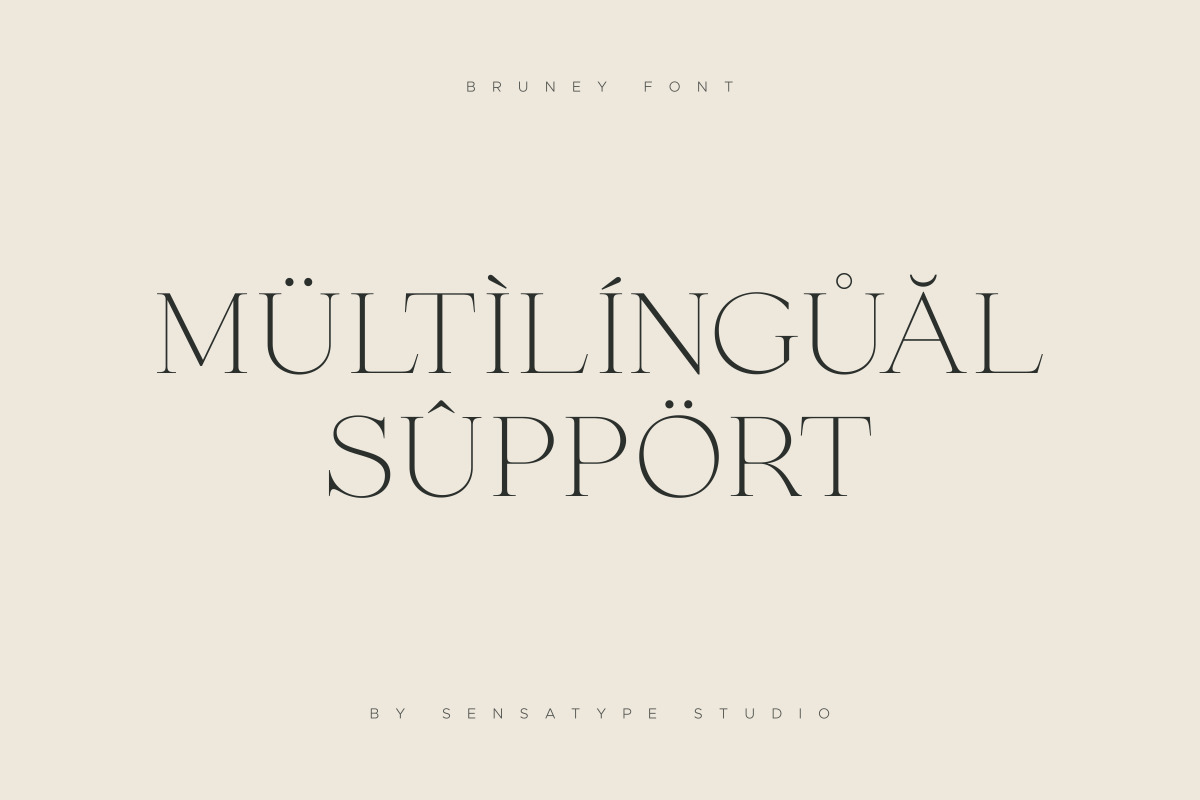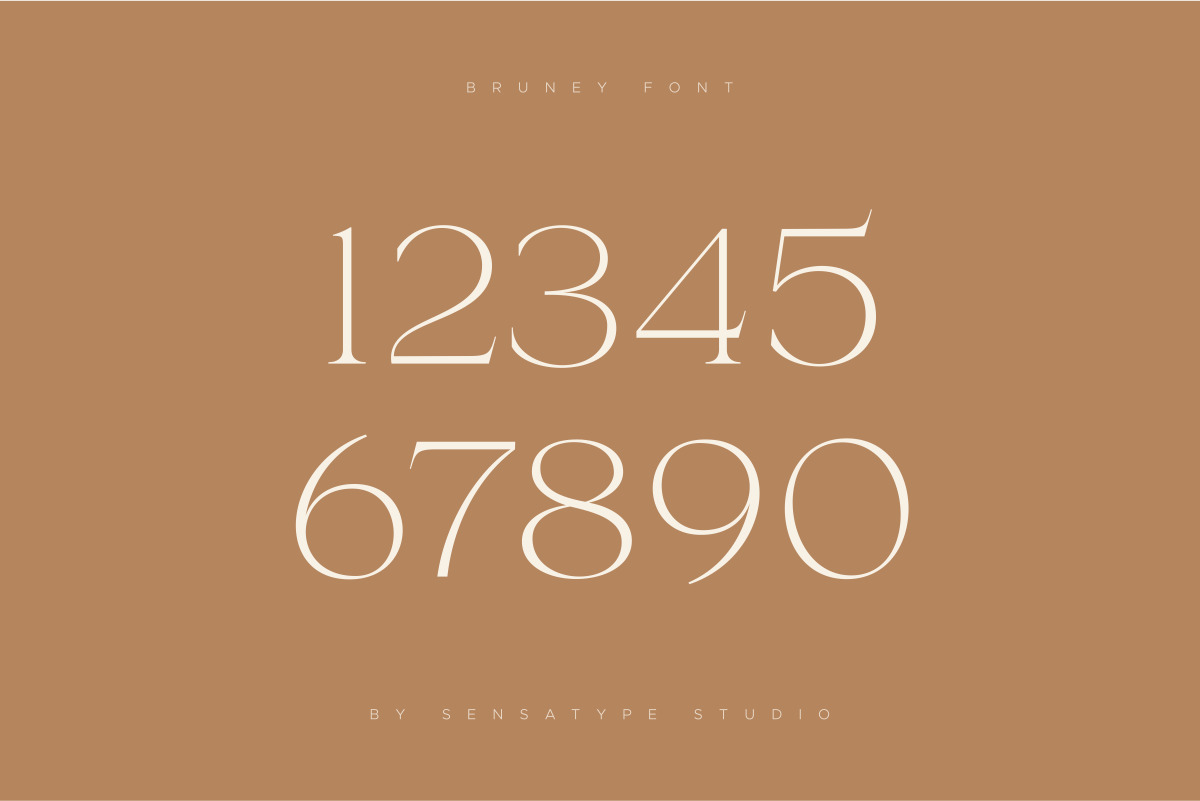
Bruney - Classy Ligature Font Free Download . Download ss bruney font · free for personal use · bruney classy ligature font bruney is a classy ligature font with casual chic flair. Based on our experience as a graphic designer who works for a lot of companies, we often are requested to design a logo in a. Bruney is a classy, unique serif font perfect for brand and logo design. Bruney is a classy and unique font for brand and logo design. So, we try to brainstorm and create this font to make the idea is going out. Bruney font is a classy ligature font with casual chic flair. It is perfect for branding, wedding invites and cards, and maybe. As graphic designers, our clients frequently ask us to design logos that are unique in style yet elegant in shape. Bruney is a classy and unique font for brand and logo design. Based on our experience as a graphic designer who works for a lot of companies, we. To fulfil this requirement, we brainstormed and created the bruney font. Bruney is a classy and unique font for brand and logo design. This is perfect for branding and logo design.
It is perfect for branding, wedding invites and cards, and maybe. Based on our experience as a graphic designer who works for a lot of companies, we often are requested to design a logo in a. Download ss bruney font · free for personal use · bruney classy ligature font bruney is a classy ligature font with casual chic flair. Bruney is a classy, unique serif font perfect for brand and logo design. So, we try to brainstorm and create this font to make the idea is going out. Bruney is a classy and unique font for brand and logo design. Based on our experience as a graphic designer who works for a lot of companies, we. Based on our experience as a graphic designer who works for. As graphic designers, our clients frequently ask us to design logos that are unique in style yet elegant in shape. Bruney font is a classy ligature font with casual chic flair.
Bruney - Classy Ligature Font Free Download Bruney is a classy and unique font for brand and logo design. Based on our experience as a graphic designer who works for a lot of companies, we. Based on our experience as a graphic designer who works for. Bruney font is a classy ligature font with casual chic flair. This is perfect for branding and logo design. To fulfil this requirement, we brainstormed and created the bruney font. Bruney is a classy and unique font for brand and logo design. So, we try to brainstorm and create this font to make the idea is going out. Bruney is a classy, unique serif font perfect for brand and logo design. It is perfect for branding, wedding invites and cards, and maybe. Bruney is a classy and unique font for brand and logo design. Based on our experience as a graphic designer who works for a lot of companies, we often are requested to design a logo in a. Bruney is a classy and unique font for brand and logo design. Download ss bruney font · free for personal use · bruney classy ligature font bruney is a classy ligature font with casual chic flair. As graphic designers, our clients frequently ask us to design logos that are unique in style yet elegant in shape.
Bruney Classy Ligature Font Fontsera Bruney - Classy Ligature Font Free Download This is perfect for branding and logo design. Based on our experience as a graphic designer who works for a lot of companies, we. Bruney is a classy and unique font for brand and logo design. Based on our experience as a graphic designer who works for. Bruney is a classy and unique font for brand and logo design. So,. Bruney - Classy Ligature Font Free Download.
Glitten Ligature Serif Font Free Fonts, Serif Fonts Bruney - Classy Ligature Font Free Download Bruney is a classy, unique serif font perfect for brand and logo design. Bruney is a classy and unique font for brand and logo design. So, we try to brainstorm and create this font to make the idea is going out. Based on our experience as a graphic designer who works for a lot of companies, we. Bruney is a. Bruney - Classy Ligature Font Free Download.
Bruney Classy Ligature Font on Yellow Images Creative Store Bruney - Classy Ligature Font Free Download Based on our experience as a graphic designer who works for. Bruney is a classy and unique font for brand and logo design. As graphic designers, our clients frequently ask us to design logos that are unique in style yet elegant in shape. Download ss bruney font · free for personal use · bruney classy ligature font bruney is a. Bruney - Classy Ligature Font Free Download.
Bruney Classy Ligature Font Ideias de logomarca, Ideias de logotipo Bruney - Classy Ligature Font Free Download This is perfect for branding and logo design. Based on our experience as a graphic designer who works for. So, we try to brainstorm and create this font to make the idea is going out. Bruney is a classy and unique font for brand and logo design. It is perfect for branding, wedding invites and cards, and maybe. Bruney font. Bruney - Classy Ligature Font Free Download.
Bruney Classy Ligature Font Design Cuts Bruney - Classy Ligature Font Free Download Based on our experience as a graphic designer who works for. Based on our experience as a graphic designer who works for a lot of companies, we. So, we try to brainstorm and create this font to make the idea is going out. As graphic designers, our clients frequently ask us to design logos that are unique in style yet. Bruney - Classy Ligature Font Free Download.
Galins Ligature Typeface by Brand Semut on Dribbble Bruney - Classy Ligature Font Free Download So, we try to brainstorm and create this font to make the idea is going out. Based on our experience as a graphic designer who works for. As graphic designers, our clients frequently ask us to design logos that are unique in style yet elegant in shape. Bruney font is a classy ligature font with casual chic flair. Bruney is. Bruney - Classy Ligature Font Free Download.
Bruney Classy Ligature Font Dfonts Bruney - Classy Ligature Font Free Download This is perfect for branding and logo design. Bruney is a classy and unique font for brand and logo design. Download ss bruney font · free for personal use · bruney classy ligature font bruney is a classy ligature font with casual chic flair. Bruney is a classy, unique serif font perfect for brand and logo design. Based on our. Bruney - Classy Ligature Font Free Download.
Classy Brune Sans Serif Font Free Download Creativetacos Bruney - Classy Ligature Font Free Download So, we try to brainstorm and create this font to make the idea is going out. Bruney is a classy, unique serif font perfect for brand and logo design. Bruney is a classy and unique font for brand and logo design. Based on our experience as a graphic designer who works for a lot of companies, we often are requested. Bruney - Classy Ligature Font Free Download.
Bruney Classy Ligature Font Best serif fonts, Serif fonts, Modern Bruney - Classy Ligature Font Free Download Based on our experience as a graphic designer who works for. Bruney is a classy and unique font for brand and logo design. Bruney is a classy, unique serif font perfect for brand and logo design. Download ss bruney font · free for personal use · bruney classy ligature font bruney is a classy ligature font with casual chic flair.. Bruney - Classy Ligature Font Free Download.